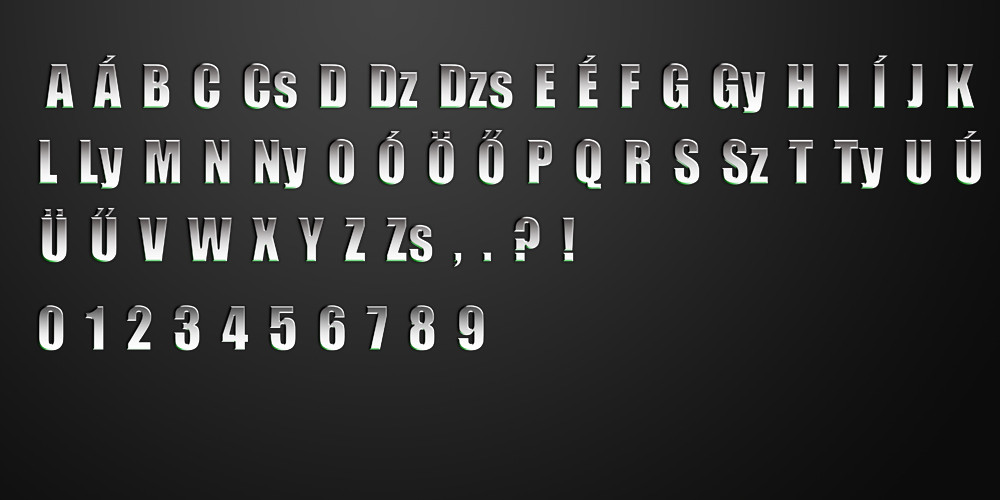
I made call of duty fonts. You can make with this call of duty style text.Related content
This is a png pic without background. You can use it with ps if you open the png file and copy the characters that you can to evict the word what you want. And sorry about my bad english level
Awesome. Any chance we could get them without shadows?
Of course. I hope, I haven't lost the psd.
Thought there's just a regular font ?!
I remember that i was extracting the font out off the game files.
It's nothing special, it's a regular TrueType font that uses CoD4:MW.
It's called "Bank Gothic", it's a commercial one.
CoD4 uses the two types "LT BT" as well as "MD BT".